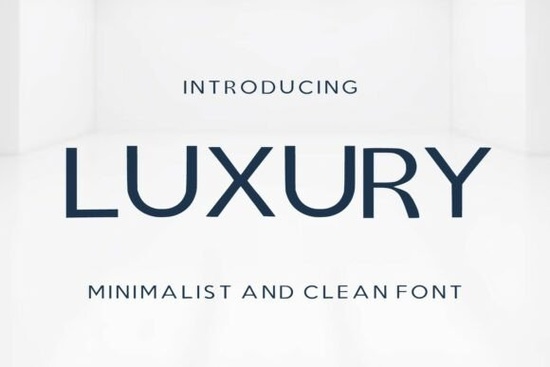
If you're looking for a clean, modern typeface that communicates quality without shouting, Luxury Font is worth your attention. It’s not flashy or ornate instead, it leans into quiet confidence: balanced letterforms, precise spacing, and subtle details that only become noticeable when you look closely. Designers working on fashion branding, wedding stationery, beauty packaging, or editorial layouts often find this font fits naturally into projects where tone matters as much as legibility.
Who actually uses Luxury Font and why?
This isn’t just another “luxury”-labeled font. Its structure is intentionally minimalist and geometric, but with softness in the curves and careful optical adjustments that keep it readable at small sizes like on cosmetic labels or Instagram bios. Small business owners launching a skincare line or a boutique interior design studio tell us they chose it because it feels consistent: it works on a business card, a website header, and a product tag without needing heavy styling or extra effects.
Crafters and print-on-demand sellers also appreciate how well it pairs with textures think linen paper, foil stamping, or matte black backgrounds. Unlike some ultra-thin luxury fonts that vanish on low-resolution screens or fade in print, Luxury Font holds its weight across media. That makes it reliable for both digital mockups and physical production.
How does it compare to other refined sans-serifs?
If you already own Might Font, you’ll notice Luxury Font shares its clarity but trades bold contrast for quieter elegance. Sunflower Font brings warmth and gentle rounded edges great for lifestyle brands while Luxury Font stays cooler and more architectural. For designers who prefer tighter control over hierarchy, Rota Pro Grotesk offers more stylistic variants (like condensed or italic), whereas Luxury Font focuses on one strong, cohesive cut.
And if you’ve tried Velafine Font, you’ll recognize the shared emphasis on vertical rhythm and open counters but Luxury Font simplifies further, removing slight calligraphic inflections for a flatter, more contemporary silhouette. All four are solid choices depending on your project’s voice, but Luxury Font stands out when you need something that reads as expensive, not just styled.
Where does it work best practically speaking?
Here’s what real users report:
- Logos & brand systems: Especially effective when paired with a simple icon or monogram no extra flourishes needed.
- Packaging for cosmetics or candles: Prints cleanly on kraft paper, glass, or metallic labels.
- Wedding invitations and menus: Works with serif body fonts (like Playfair or Cormorant) without competing.
- Social media visuals: Reads well even at thumbnail size on Instagram or Pinterest.
- Website headings: Loads quickly (it’s a single-weight OTF/TTF file), and looks crisp on both Apple and Android devices.
It’s not ideal for long paragraphs of body text that’s by design. Think of it as your “voice” font: the one you use for names, titles, quotes, and key messages. Pair it with a neutral, highly legible companion (like Inter, Lato, or even your system’s default sans-serif) for supporting text.